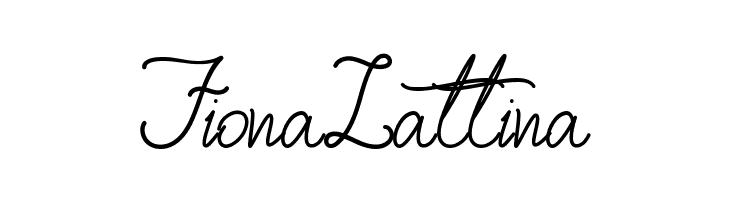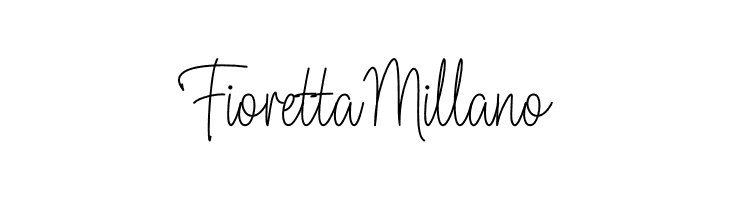
An elegant and sophisticated cursive script font with flowing, intricate designs.
A bold, elegant script font with flowing, cursive letterforms.
A graceful cursive script font with elegant, flowing lines.
A graceful and elegant script font with flowing, cursive letterforms.
A graceful, cursive font with elongated, flowing letterforms.
A flowing, elegant handwritten font with a sophisticated cursive flair.